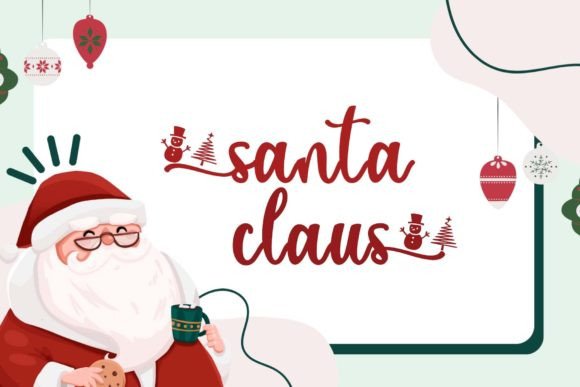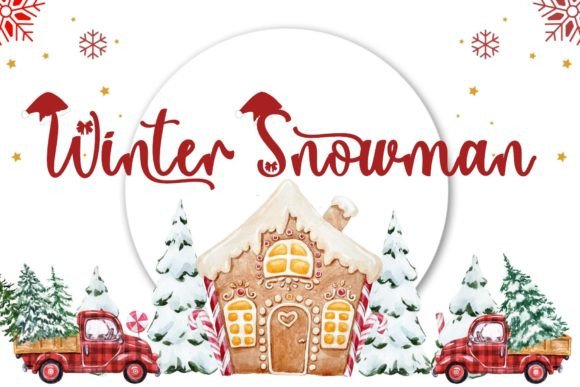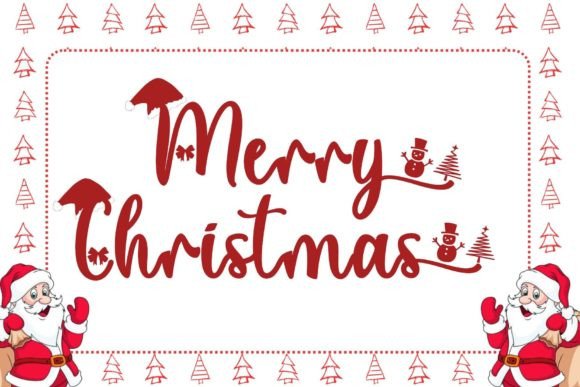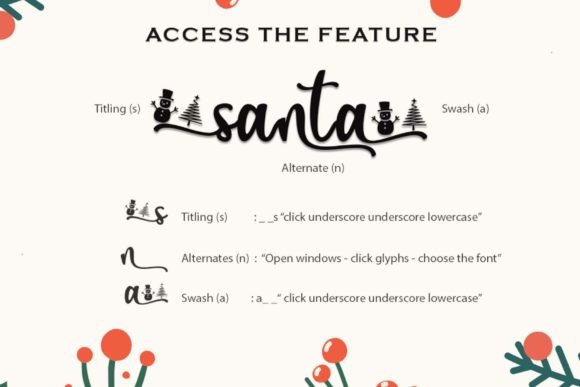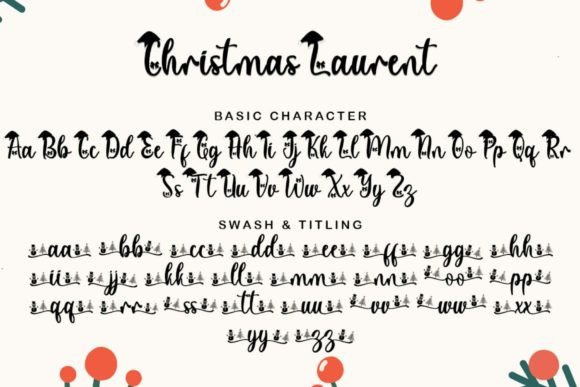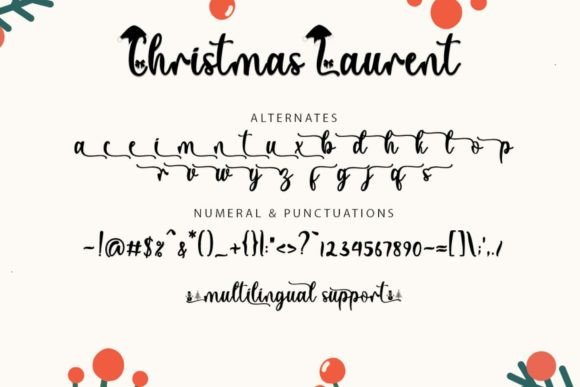
Introducing Christmas Laurent Font: A Festive and Unique Handwritten Font for the Holiday Season
Are you looking for a font that captures the essence of Christmas and adds a touch of elegance to your designs? Look no further than the Christmas Laurent Font, a beautiful and unique handwritten font that is perfect for creating stunning Christmas-themed designs. In this article, we’ll take a closer look at the features and benefits of this amazing font and explore how it can elevate your holiday designs.
A Beautiful and Unique Handwritten Font
Christmas Laurent Font is a gorgeous handwritten font that is adorned with Christmas decorations on the letters, making it a standout font for the holiday season. The font is designed to evoke a sense of festivity and joy, with intricate details and ornaments that will add a touch of magic to your designs. Whether you’re creating Christmas cards, gift tags, or decorations, this font is sure to impress.
Extensive Character Set and Features
One of the best things about Christmas Laurent Font is its extensive character set, which includes:
- Uppercase letters
- Lowercase letters
- Numerals
- Punctuation
- Swash
- Titling
- Alternates
- Multilingual support
This means that you can create a wide range of designs using this font, from simple Christmas greetings to more complex and intricate designs. The font also comes with PUA encoding, which makes it easy to access all of the amazing glyphs and ligatures.
Perfect for Christmas and Winter Designs
As its name suggests, Christmas Laurent Font is specifically designed for Christmas and winter designs. It’s perfect for creating:
- Christmas cards and invitations
- Gift tags and wrapping paper
- Christmas decorations and ornaments
- Winter-themed posters and flyers
The font’s festive and elegant design makes it ideal for any Christmas or winter-themed project, and its versatility means that you can use it to create a wide range of designs.
Christmas Laurent Font is a must-have for designers and crafters who want to create stunning Christmas designs. Here are just a few benefits of using this amazing font:
- Ease of use: The font is easy to use and comes with PUA encoding, which makes it simple to access all of the glyphs and ligatures.
- Versatility: The font’s extensive character set and features make it perfect for creating a wide range of designs.
- Unique and festive design: The font’s beautiful and unique design makes it perfect for creating stunning Christmas and winter-themed designs.
- Multilingual support: The font comes with multilingual support, making it perfect for designers and crafters who work with clients from around the world.